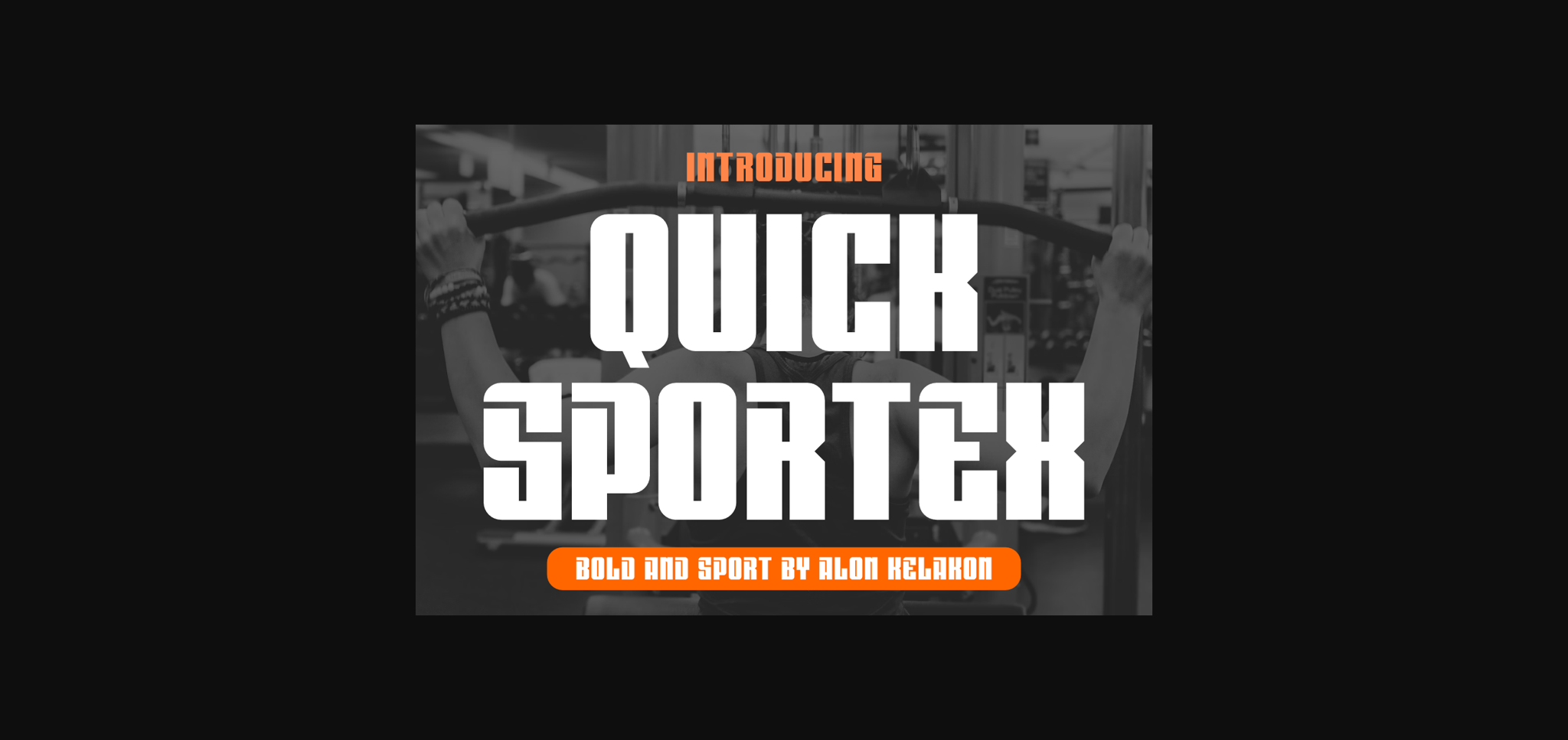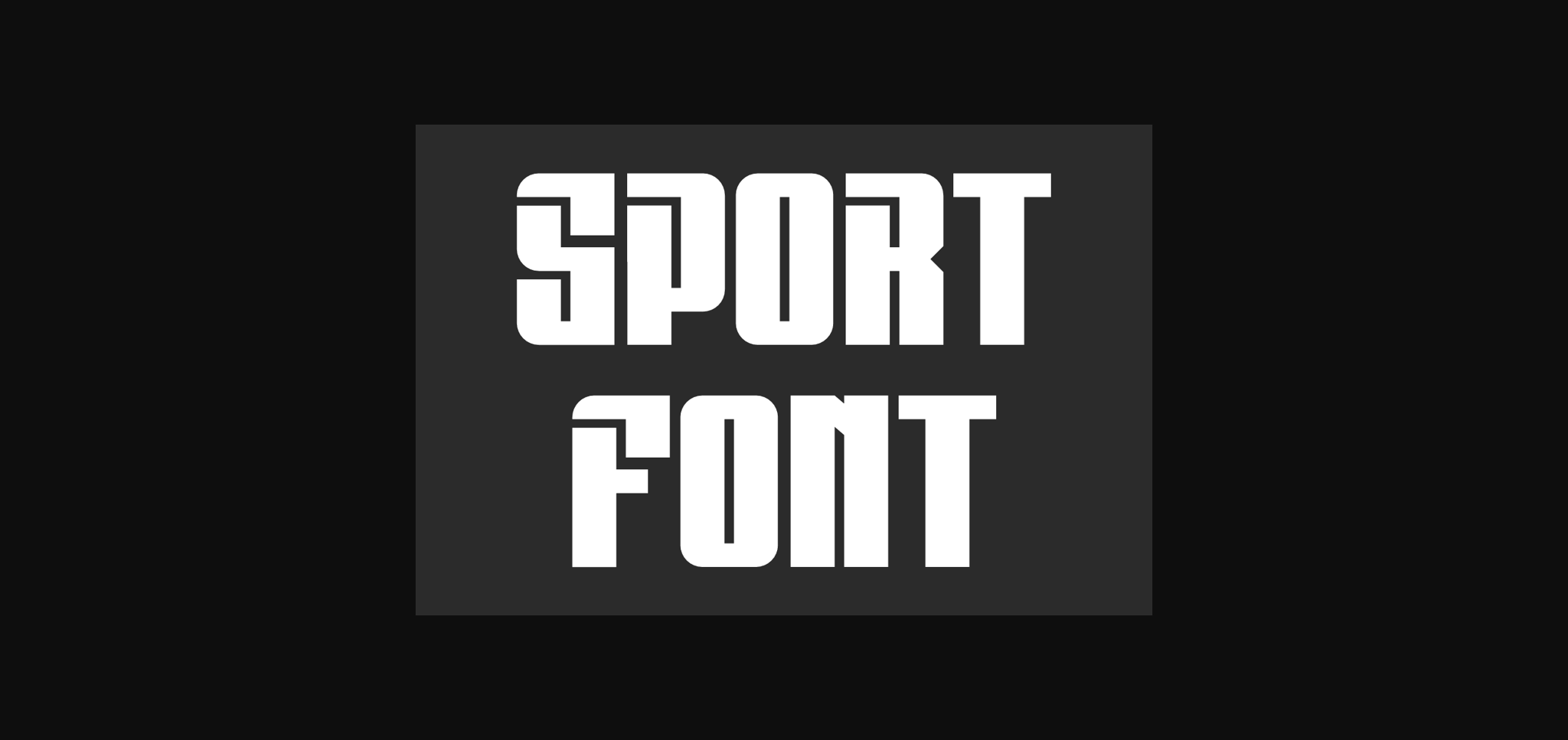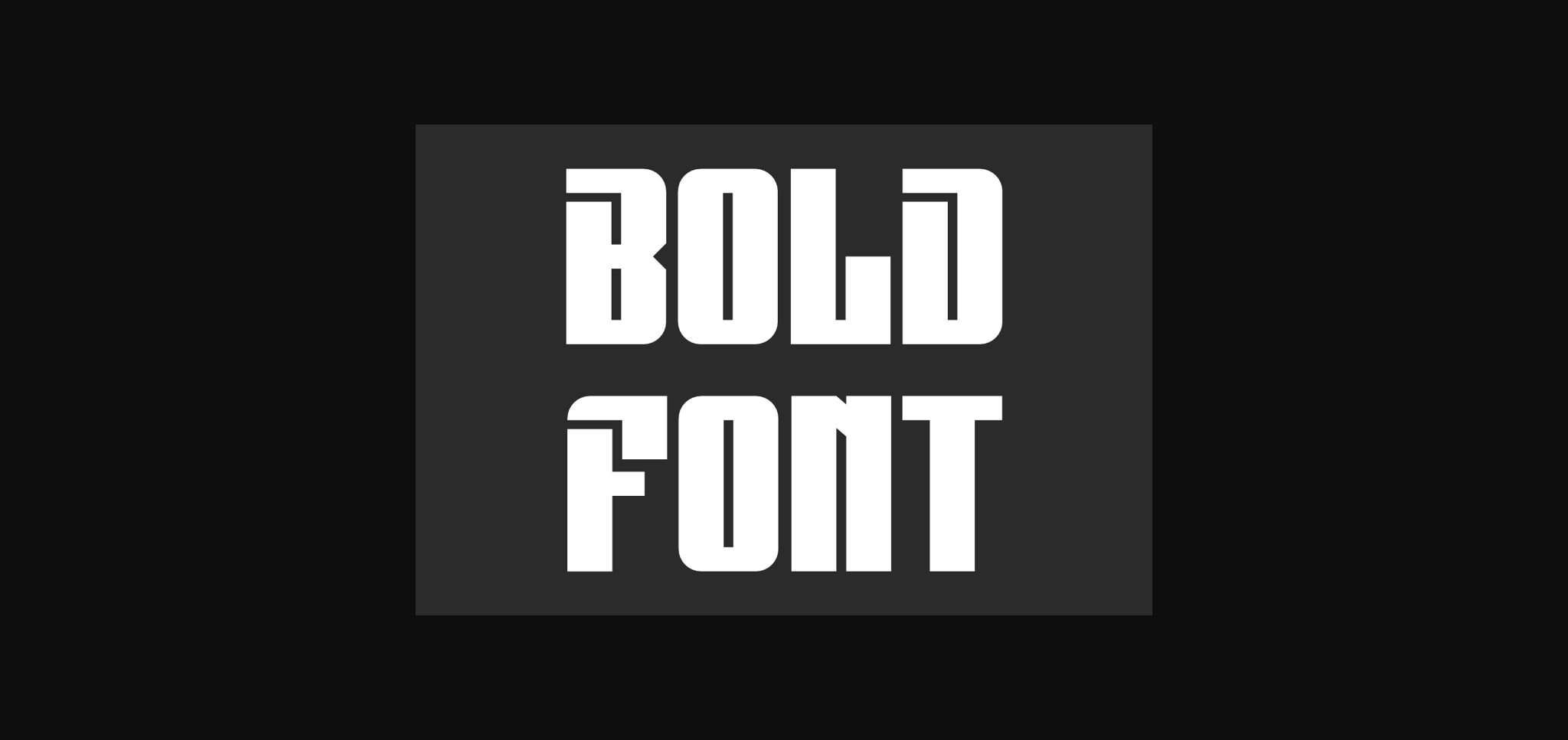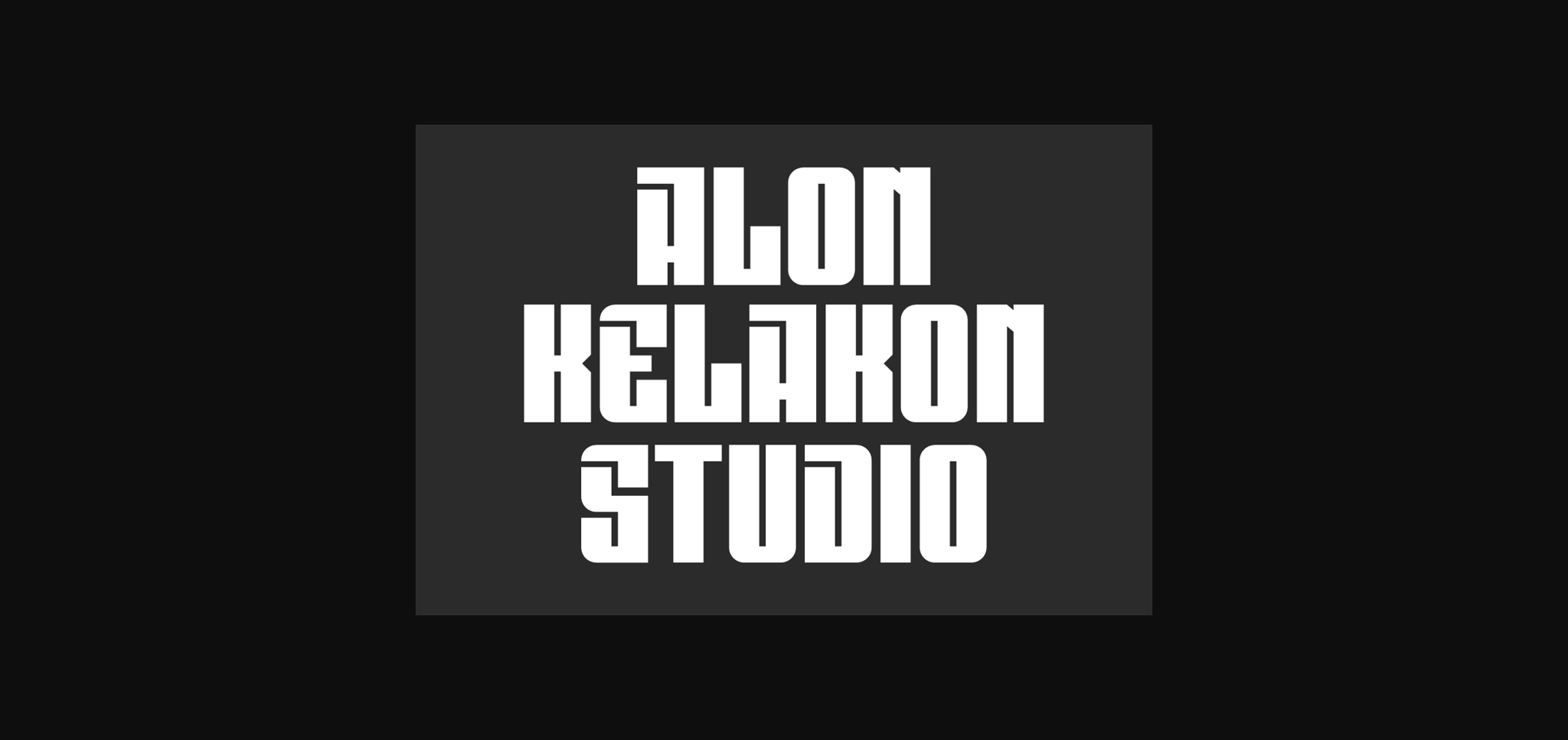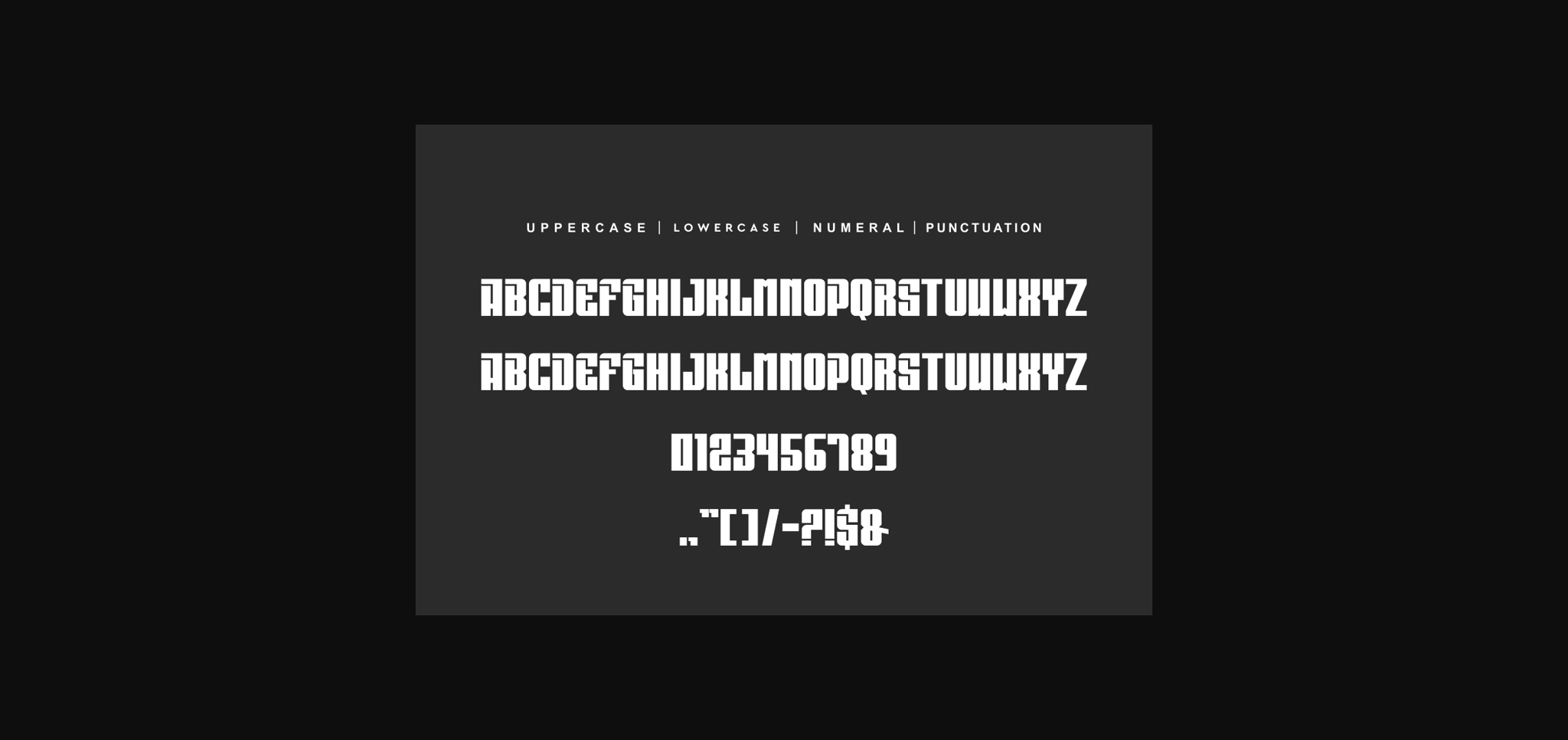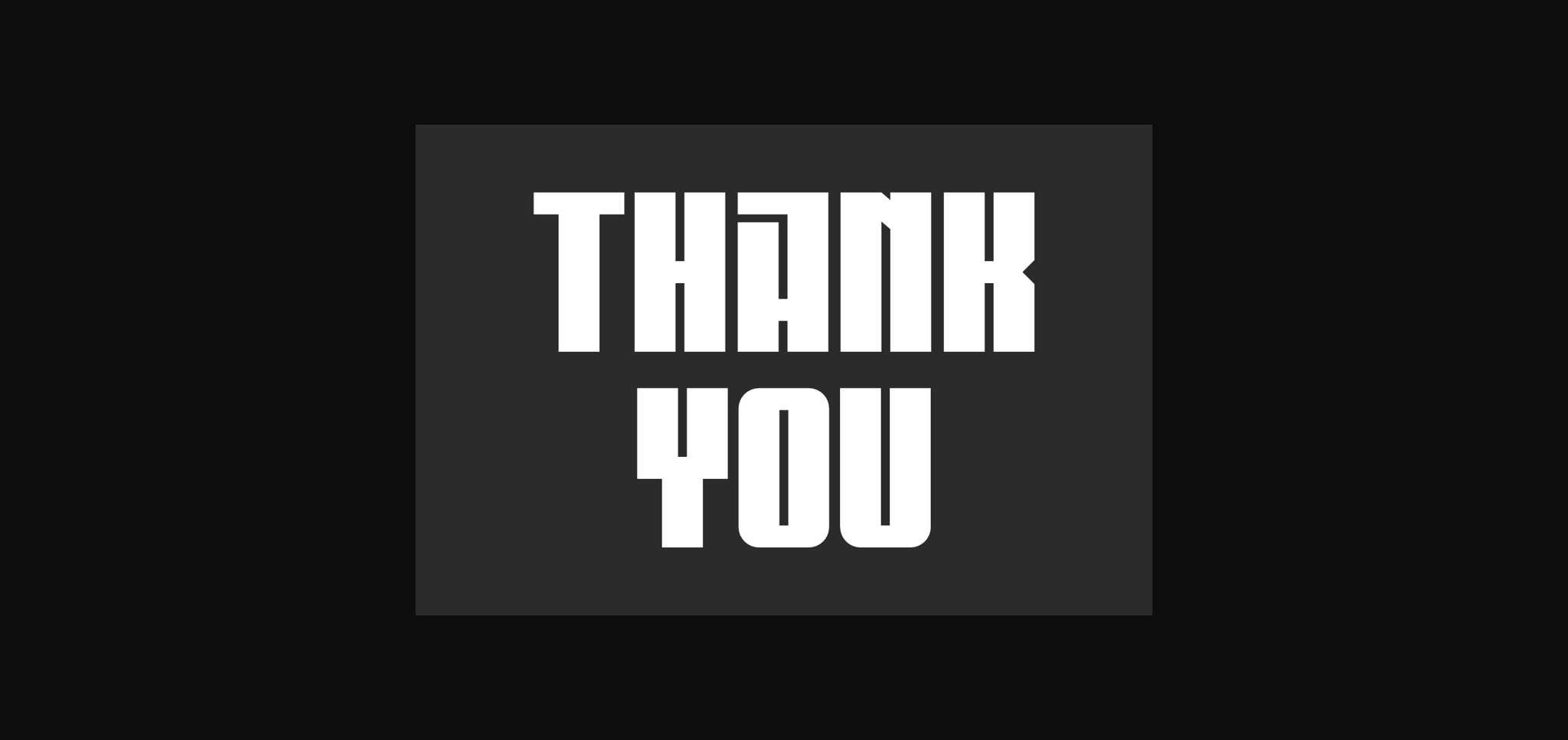
HomeSans Serif FontsQuick Sportex Font Sans Serif Fonts Quick Sportex Font FacebookXPinterestWhatsApp 1 of 8 ... Quick Sportex Font Poster 2... Quick Sportex Font Poster 3... Quick Sportex Font Poster 4... Quick Sportex Font Poster 5... Quick Sportex Font Poster 6... Quick Sportex Font Poster 7... Quick Sportex Font Poster 8... About Quick Sportex Font Quick Sportex is a bold and assertive sans serif font. It is perfect for use on your business cards, social media, posters, flyers, web design and so much more. DOWNLOAD NOW People also explored Sunshine Font Holiday Font Jollie Font Jejushi Font Beach Please Font Daisy Font Boxwell Font Richie Rush Font Britania Letter Font 394 0 TagsQuick Sportex Font Previous articleFreedom45 FontNext articleLittle Groovy Font LEAVE A REPLY Cancel reply Comment: Please enter your comment! Name:* Please enter your name here Email:* You have entered an incorrect email address! Please enter your email address here Website: Save my name, email, and website in this browser for the next time I comment. Personal Use Free Hello December Personal Use Free Read more about this font Pridaem Cooper Personal Use Free Read more about this font Veronica Personal Use Free Read more about this font Angelitta Personal Use Free Read more about this font BLOG Using Fonts in Digital Marketing: Tips to Strengthen Your Brand Identity In the realm of digital marketing, every visual element plays a crucial role in shaping a brand's identity, and fonts are no exception. The... Best Fonts for T-Shirt Design – Top 2025 Picks Elegant Wedding Invitation Fonts – Handwritten & Script Fonts Fonts That Capture the Spirit of New York City